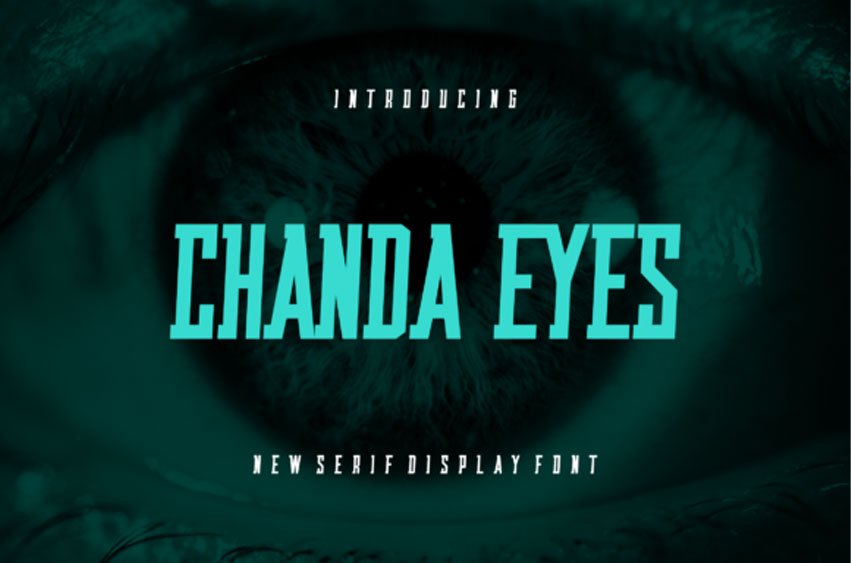
Chanda Eyes Font
Chanda Eyes Font is a bold serif font that features stylish, elegant letters.
Its strong lines and classic look make it great for headlines and important text, giving any design a touch of sophistication.